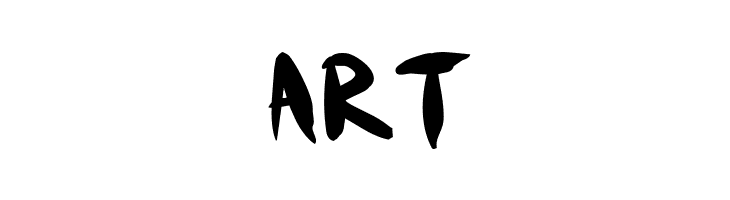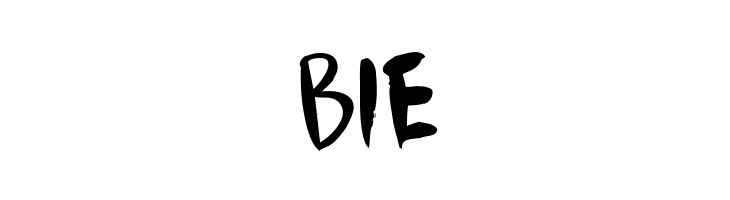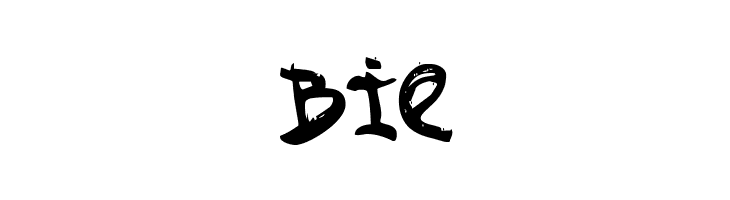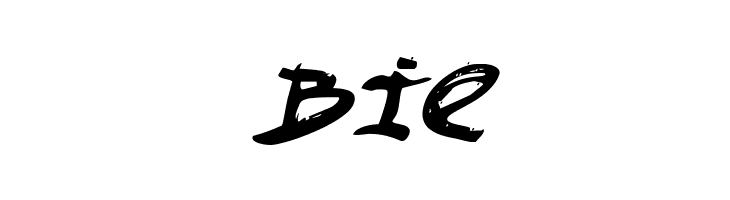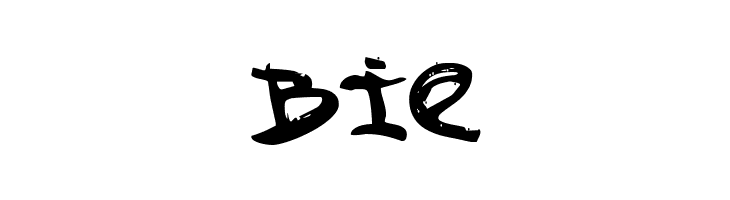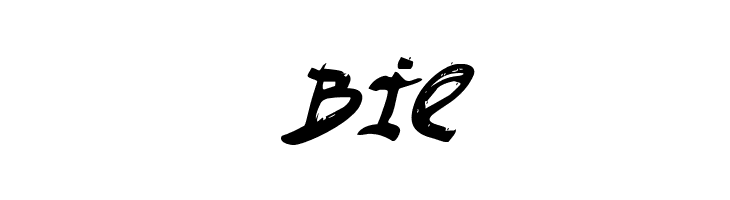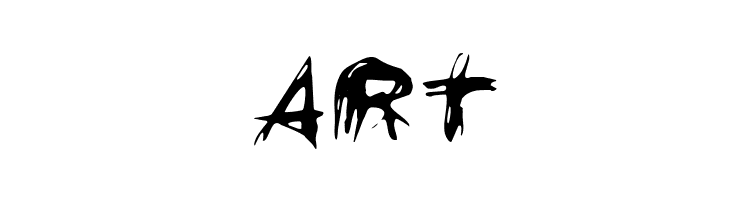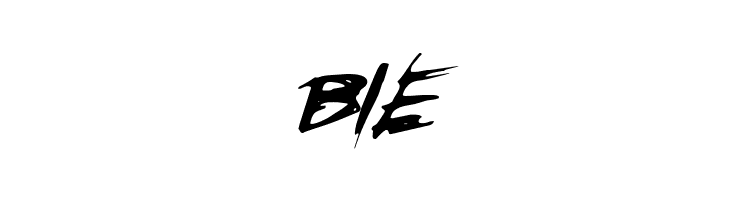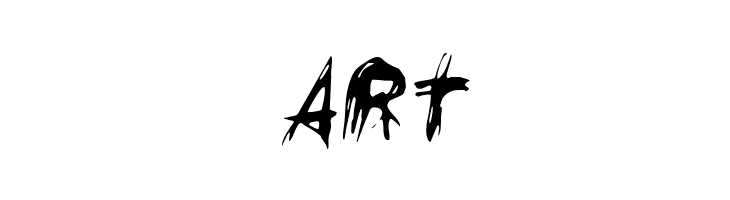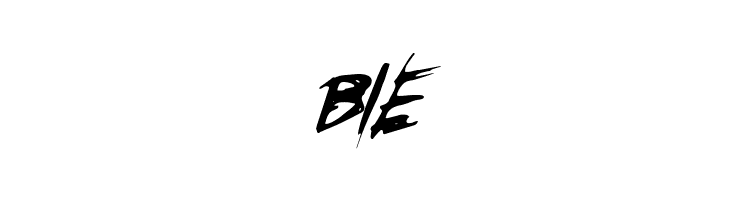
• Mudshovel
( Fonts by Spork Thug Typography - Josh Wilhelm - www.lifewithouttaffy.com/taffy/blog )
A bold, brush-style font with dynamic and expressive strokes.
• DuerTWOo
( Fonts by Andrew Hart - dirt2.com )
A bold, expressive font with a hand-painted, brush-like style.
• JulesHand
• Vtks Garota Bonita
An ornate, hand-drawn font with swirling, brush-like strokes and intricate details.
• Fight Kid Condensed
A bold, brush-style font with a dynamic and energetic appearance.
• Fight Kid Italic
A bold, brush-style italic font with dynamic, expressive strokes.
• Fight Kid
A bold, brush-style font with dynamic and irregular strokes.
• Fight Kid Condensed Italic
A bold, condensed, and italic font with high contrast and dynamic, brush-like strokes.
• Righteous Kill Italic
A bold, brush-style font with a distressed, grunge effect.
• Righteous Kill Condensed Italic
A bold, jagged, and dynamic font with a brush-like, slanted style.